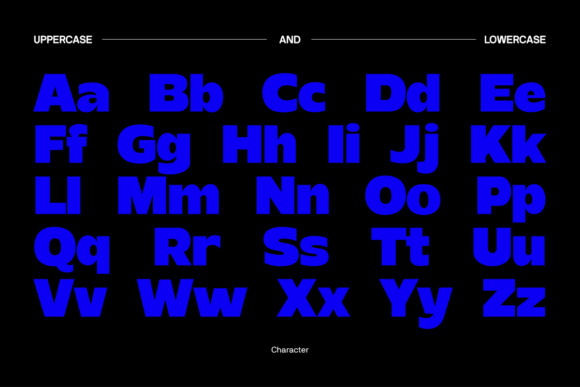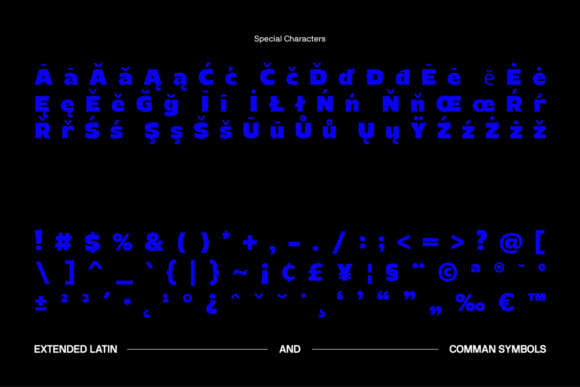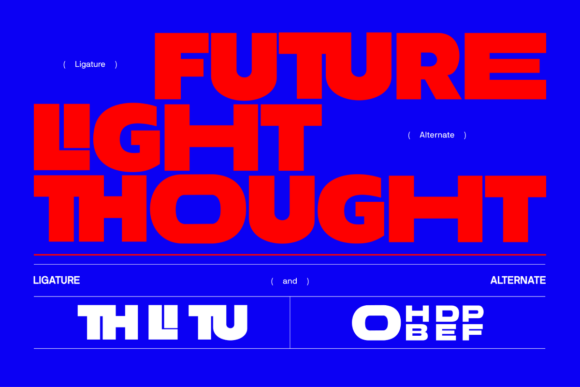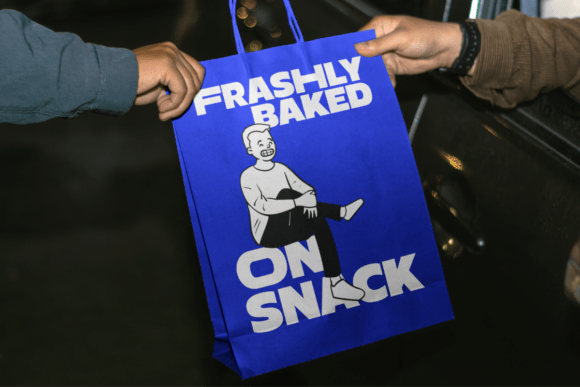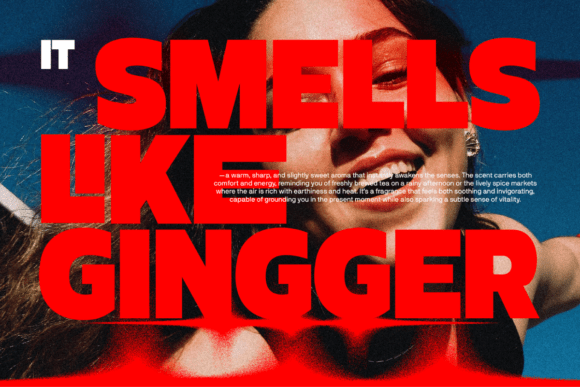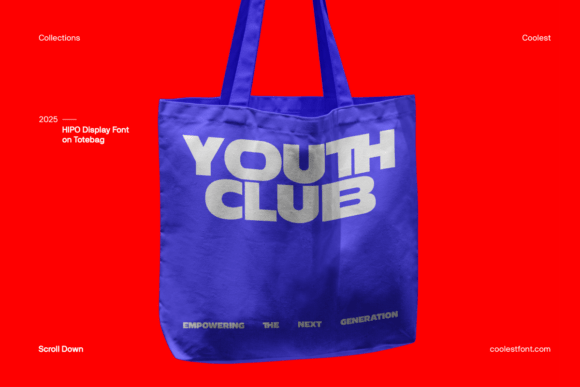
Introduction to Hipo Font Font
Fonts play a crucial role in design, and the Hipo Font font is a typeface that brings both character and versatility to any project. Whether you’re working on a branding project, a website, or a print design, the Hipo Font font offers a unique style that can elevate your work.
Hipo Font – Bold Sans Serif for Modern Branding Hipo Font, a bold sans serif font designed for modern and stylish projects.
With its confident shapes and clean design, Hipo is the perfect font for those who want a balance of strength and elegance in their typography This typeface is ideal as a branding font, logo font, or display font, giving your designs a strong identity while keeping them sleek and modern.
Key Features of Hipo Font Font
Why Choose Hipo Font Font?
The Hipo Font font is more than just a typeface – it’s a design tool that helps you communicate your message with style and clarity. Its unique character set and versatile design make it suitable for a wide range of applications, from elegant invitations to bold headlines.
With its carefully crafted letterforms and balanced proportions, the Hipo Font font ensures readability and visual appeal across all mediums.
What makes Hipo Font font special?
The Hipo Font font stands out with its unique design, exceptional readability, and versatility across various design applications.